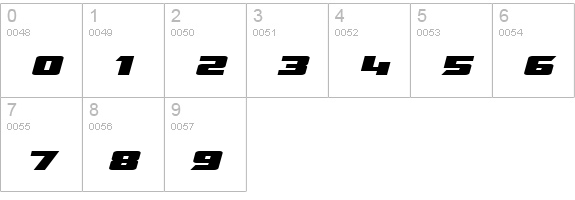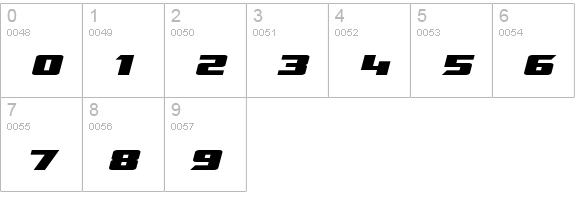
TransRobotics Extended Bold Italic is a strong, high-contrast, extended-width, italic variant in the TransRobotics typeface family \xE2\x80\x94 well suited to headlines, attention-grabbing titles, and strong calls-to-action.
TransRobotics Extended Bold Italic font is a captivating and dynamic typeface that exudes a futuristic and technological vibe. With its bold and italic design, it adds an extra level of emphasis and style to any project it is used in. This font is perfect for creating eye-catching headlines, logos, or any other design that requires a strong visual impact. The unique and innovative design of TransRobotics Extended Bold Italic font will instantly grab the attention of viewers, making it a great choice for projects that aim to stand out from the crowd. Its sleek and sharp lines combined with the bold and italic variations create a sense of movement and energy, giving your designs a modern and edgy feel. One of the best features of TransRobotics Extended Bold Italic font is that it is freely available to download at FontsMarket.com. This means that you can easily access and use this font for personal or commercial projects without any cost. Whether you are a professional designer or a hobbyist, having access to high-quality fonts like TransRobotics Extended Bold Italic font can greatly enhance your creative endeavors. So, if you are looking for a font that combines the power of boldness and italics with a futuristic and technological aesthetic, look no further than TransRobotics Extended Bold Italic font. Its captivating design and free availability make it a must-have for designers who want to make a bold statement with their projects. Download TransRobotics Extended Bold Italic font now from FontsMarket.com and unlock a world of creative possibilities.